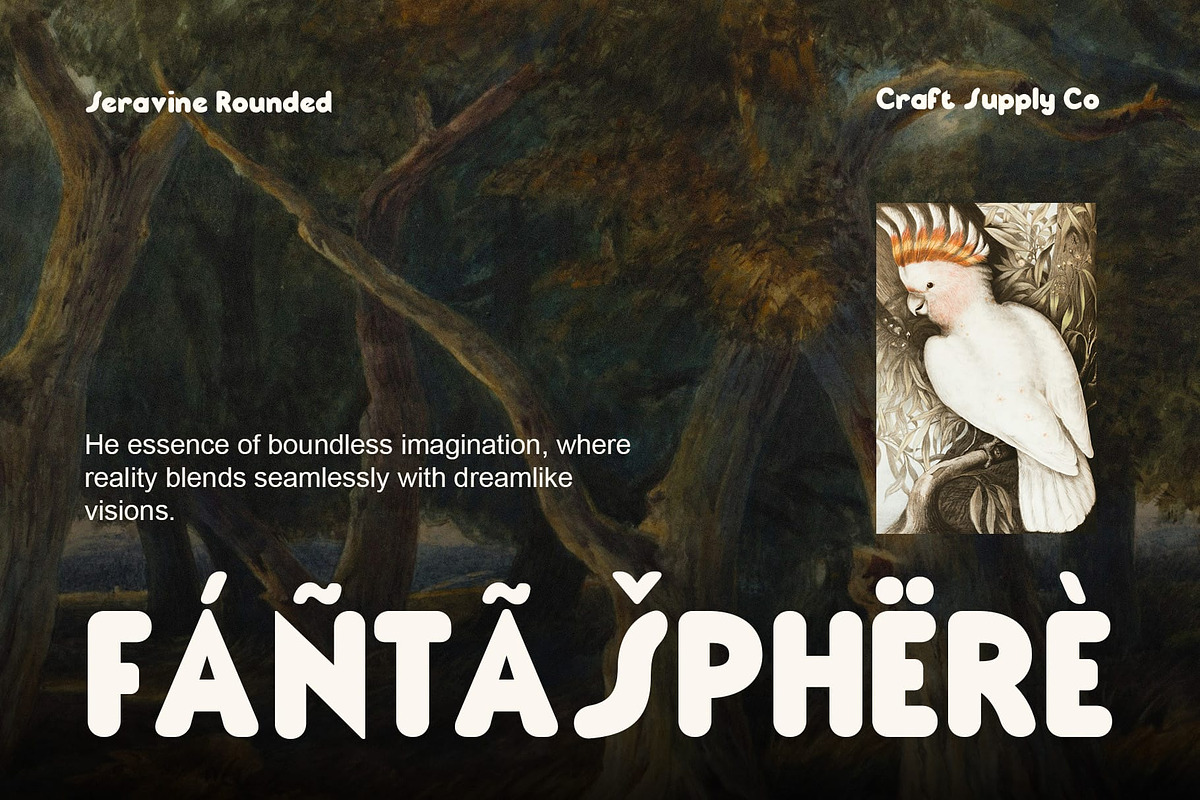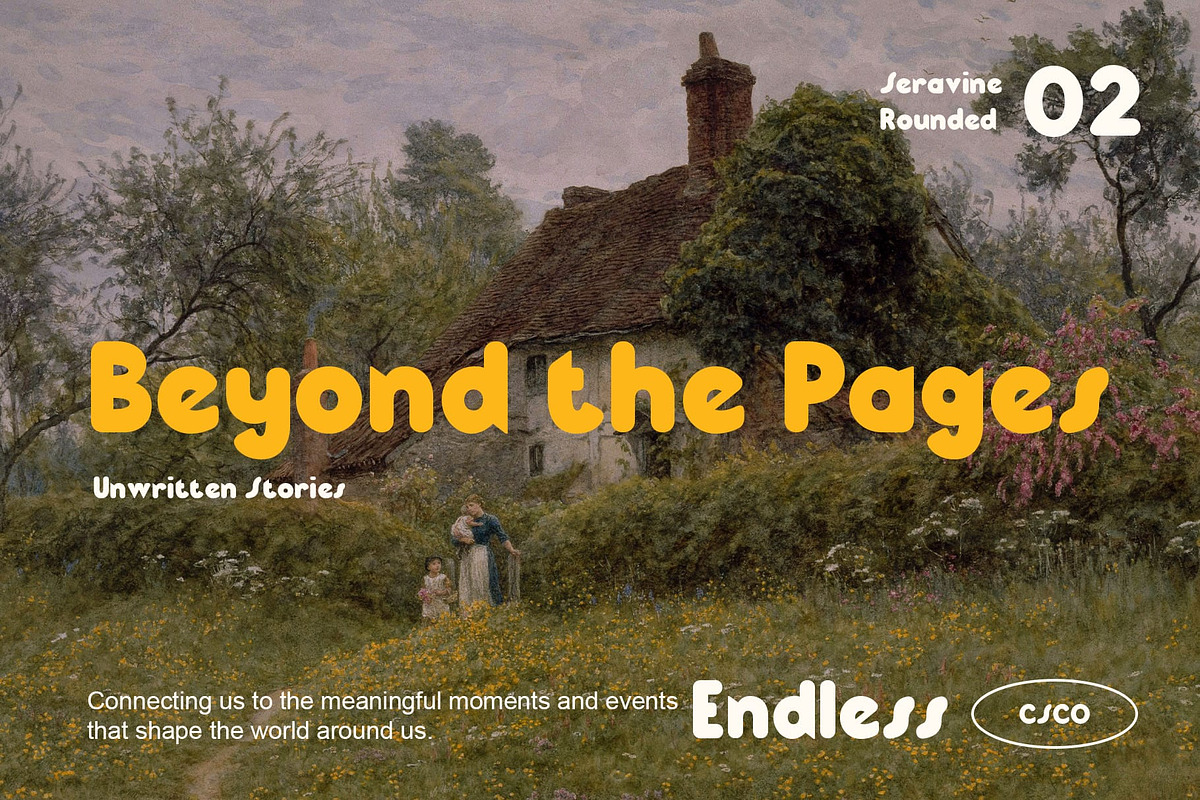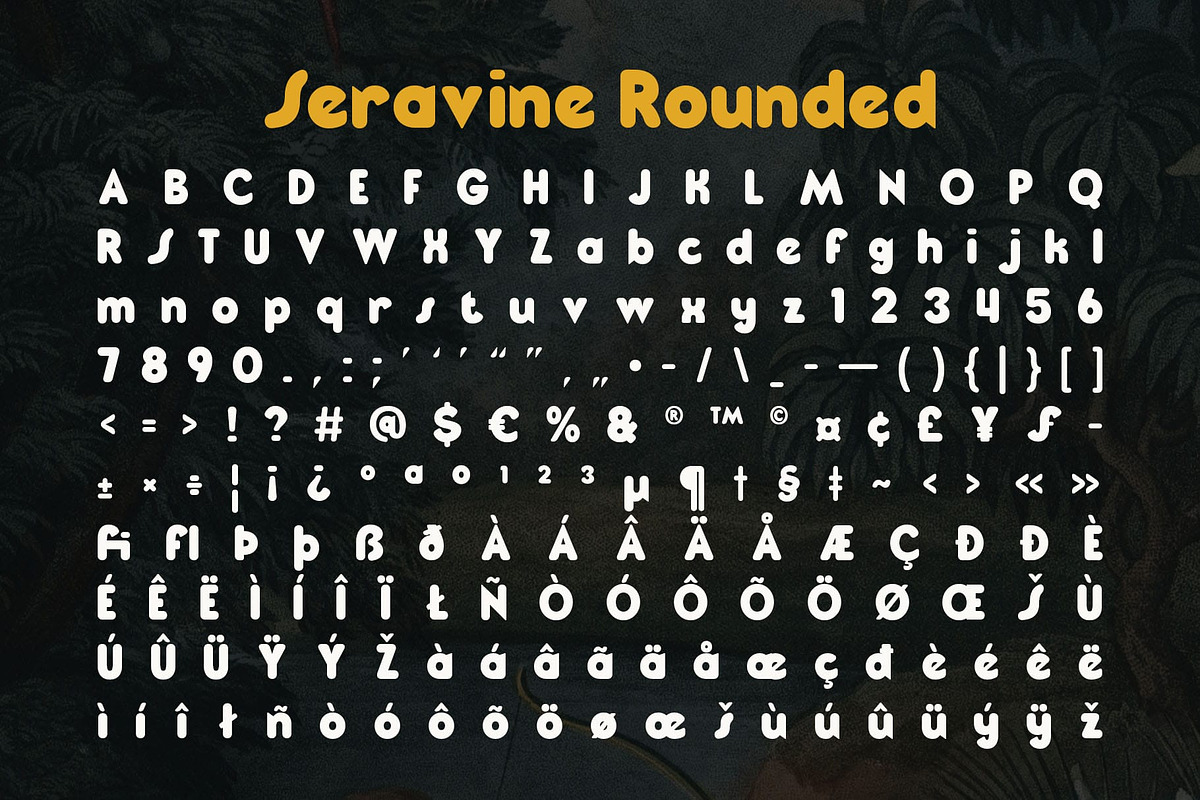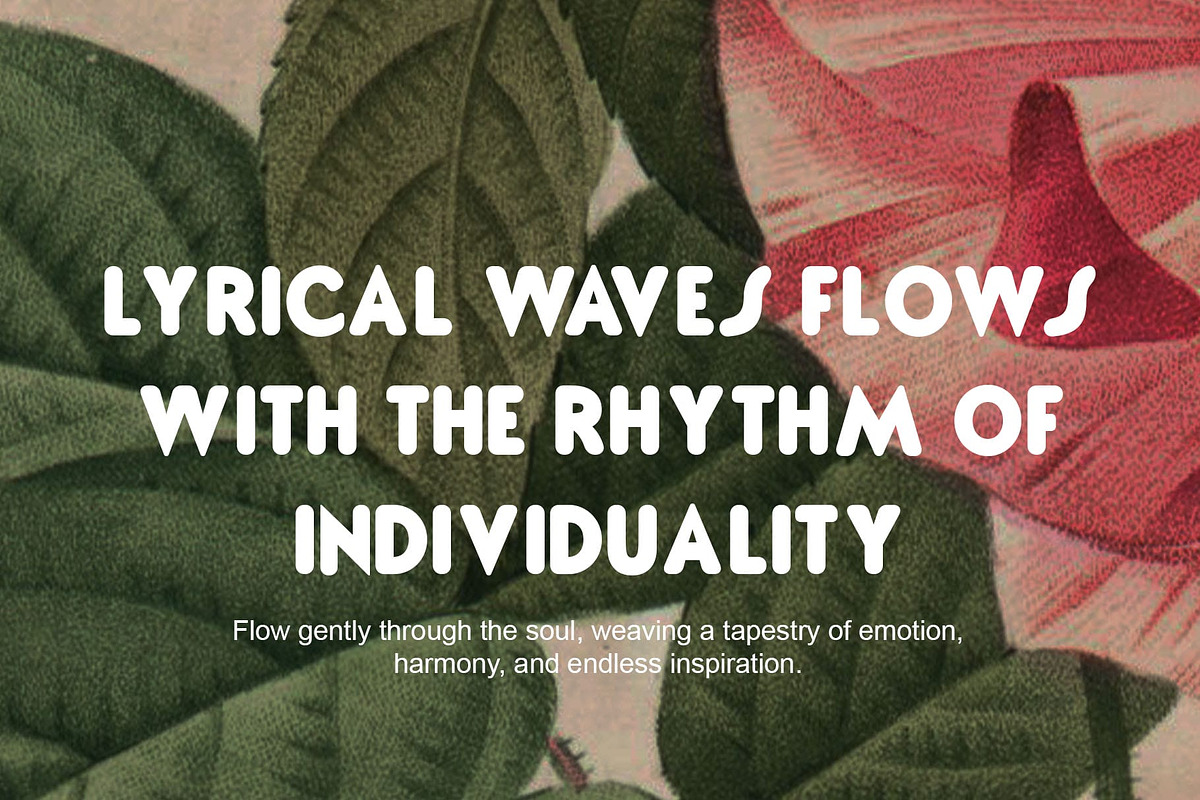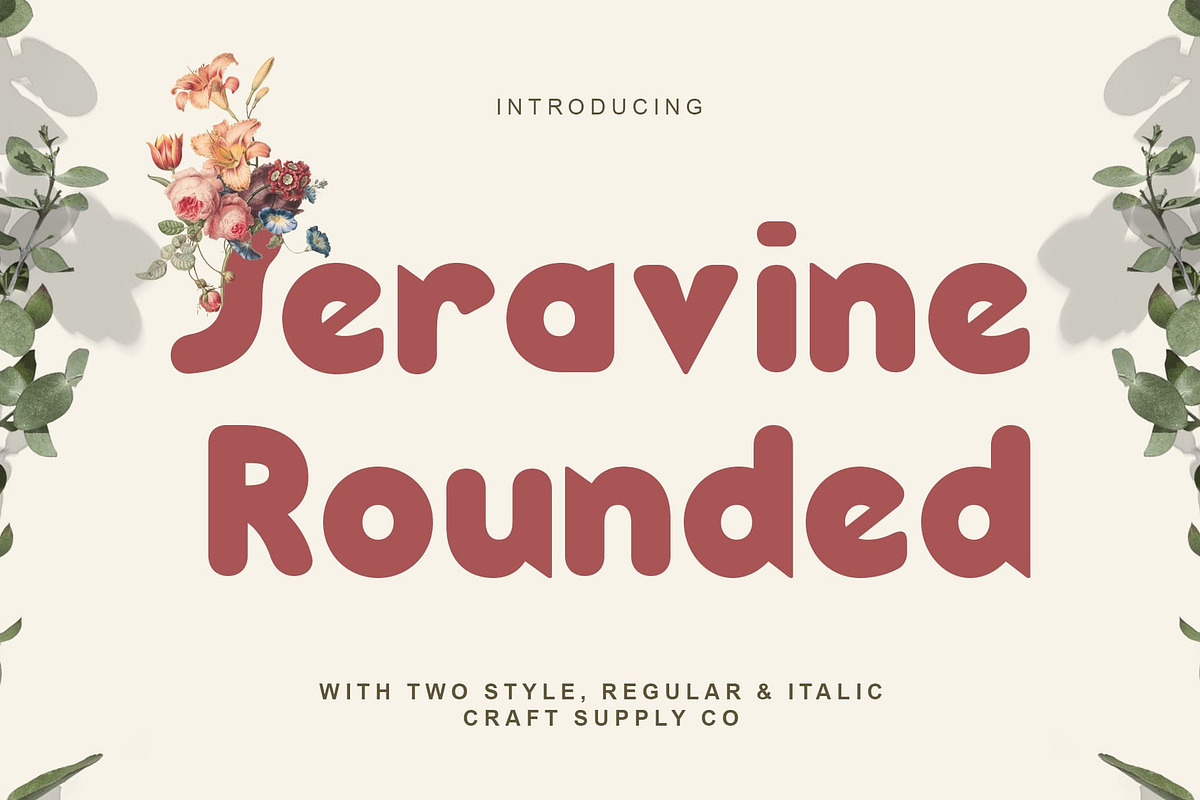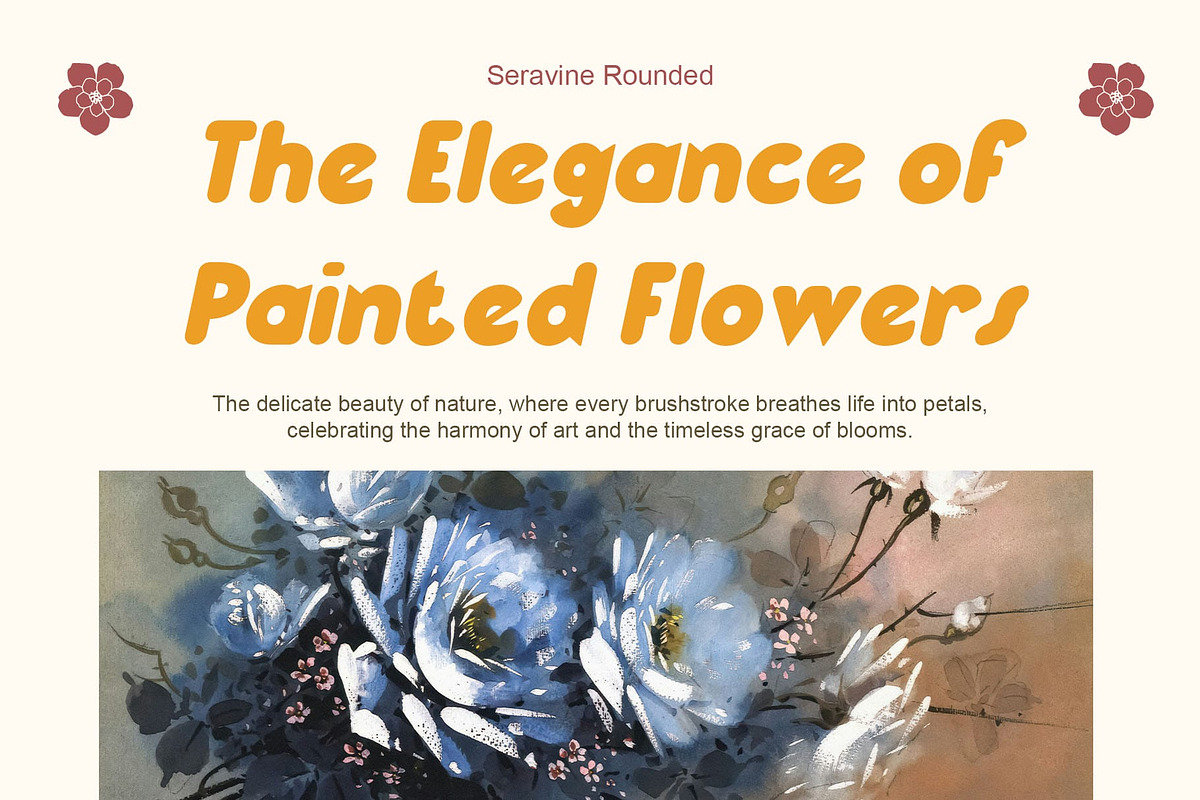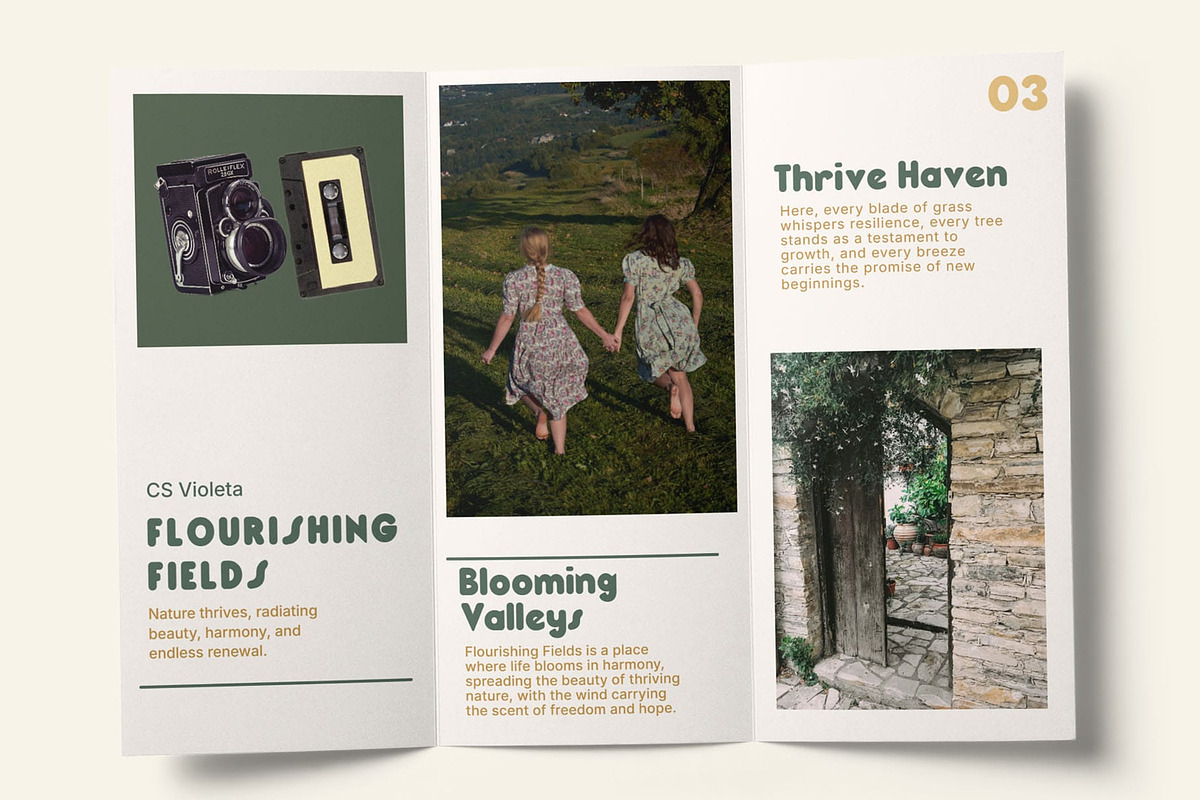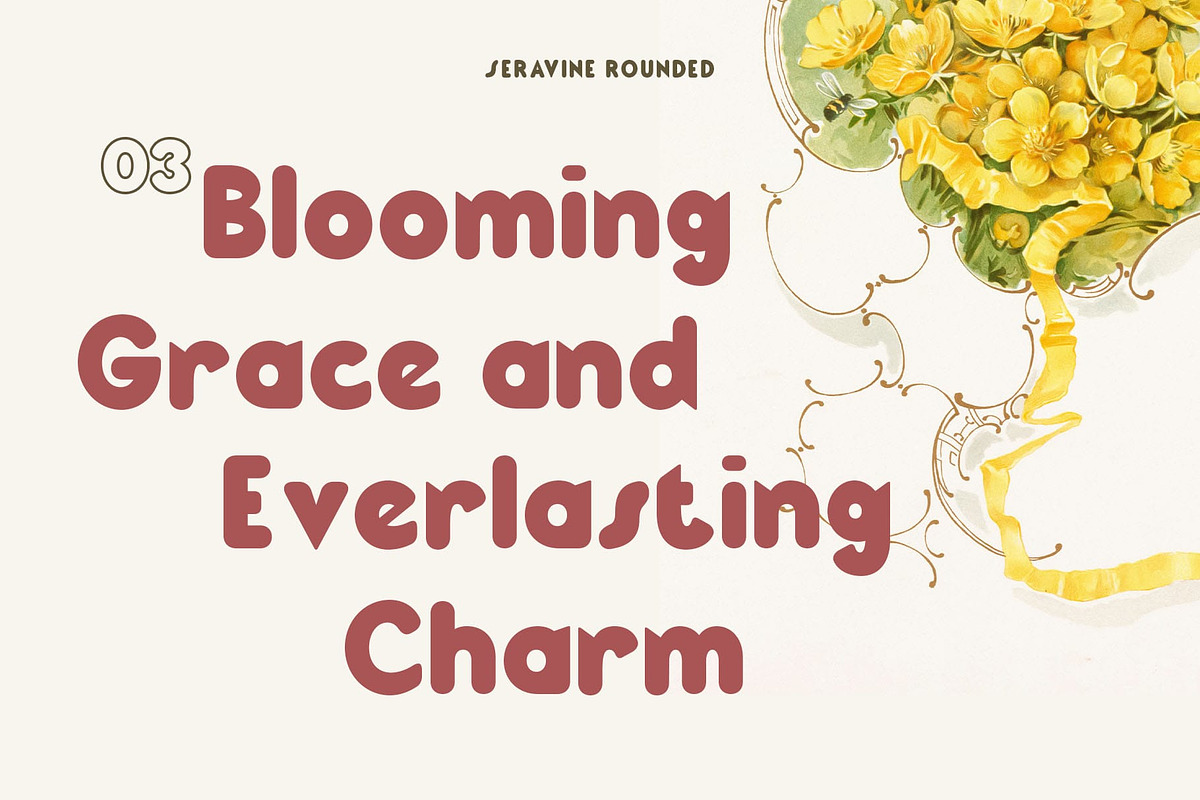
Seravine Rounded
Seravine Rounded Font: Bold Retro Vibes with a Playful Twist
Bold and Rounded Display Sans-Serif with a Funky Personality Seravine Rounded is a bold, rounded display sans-serif font that combines strong, impactful letterforms with smooth, soft edges. Its robust weight delivers a commanding presence, while its rounded shapes add warmth and friendliness, creating a perfect blend of strength and approachability. The retro, funky vibe evokes a sense of nostalgia, bringing vintage flair to modern designs.
A Nod to Nostalgia with a Contemporary Edge Inspired by the energetic and playful aesthetics of the retro era, Seravine Rounded captures the spirit of the past while maintaining a fresh, contemporary appeal. Its unique blend of boldness and softness gives it an irresistible charm, making it ideal for designs that need to balance bold statements with a sense of fun and creativity.
Perfect for Creative and Eye-Catching Projects Seravine Rounded excels in projects that call for a playful and vintage-inspired style. Whether it’s music posters, branding for creative endeavors, or attention-grabbing advertisements, this font brings a vibrant and energetic touch to any design. Its bold forms and rounded edges make it stand out in a crowd, while its funky character ensures that it leaves a lasting impression.